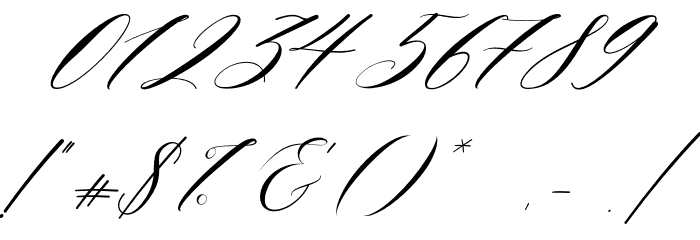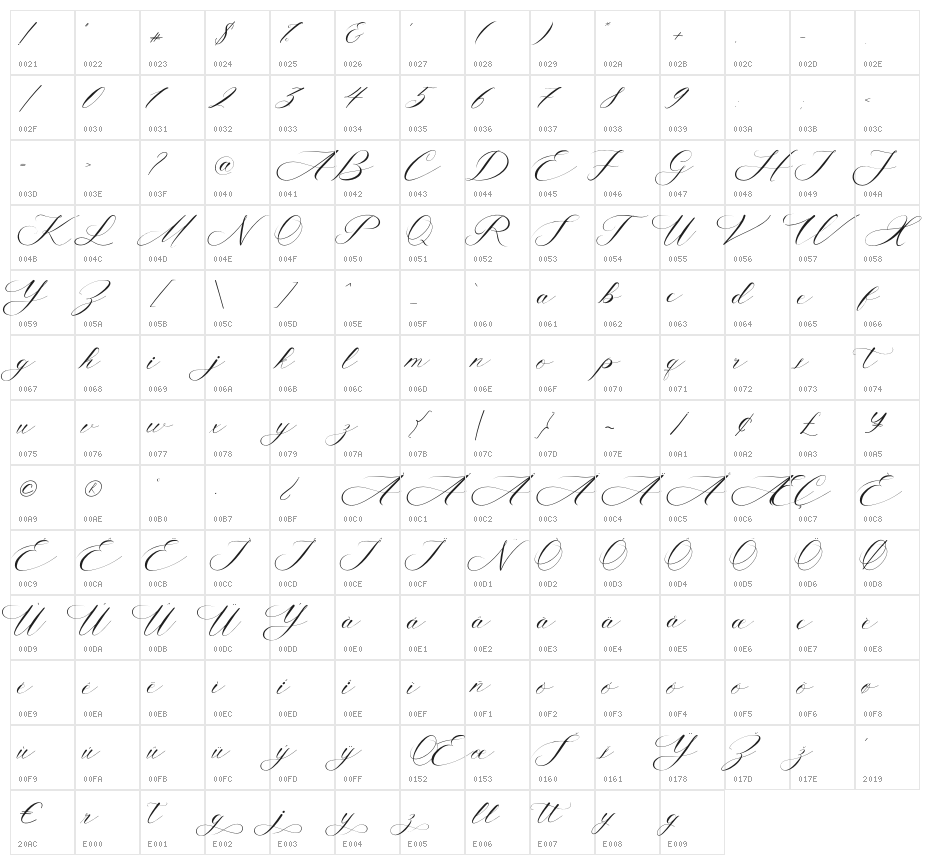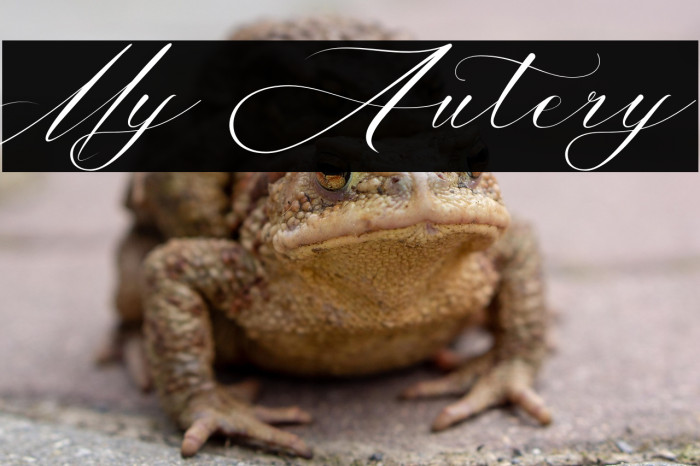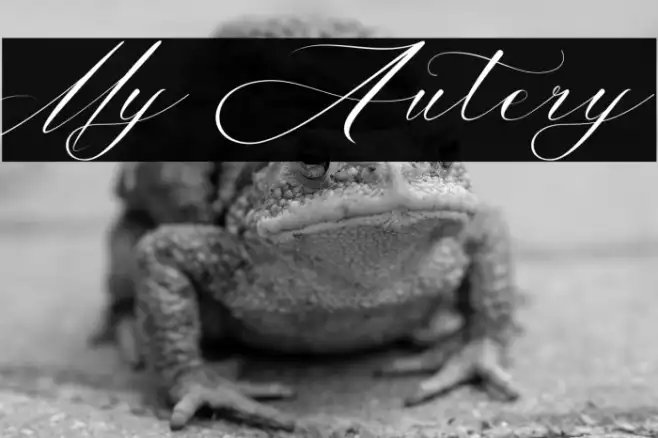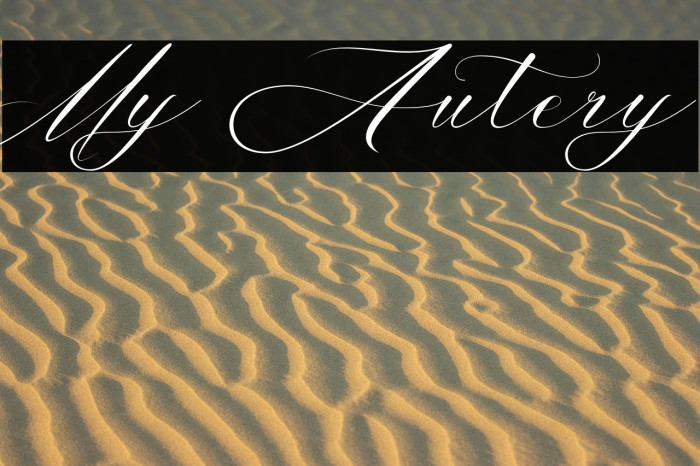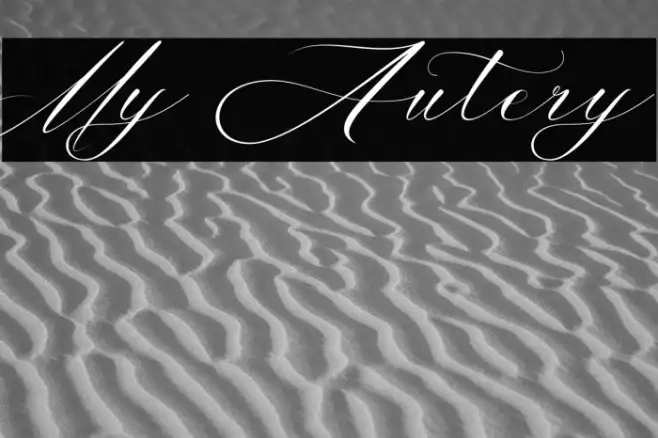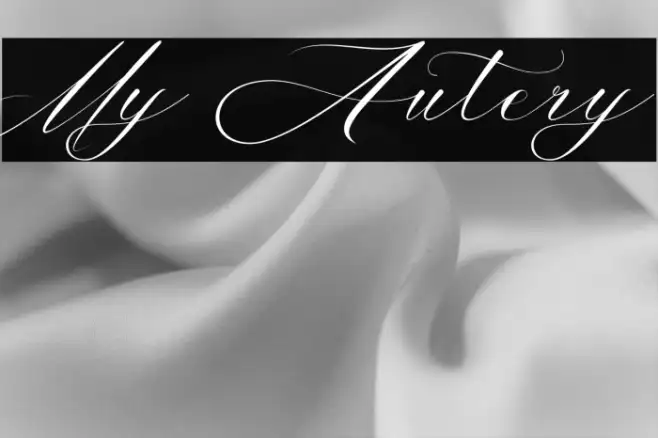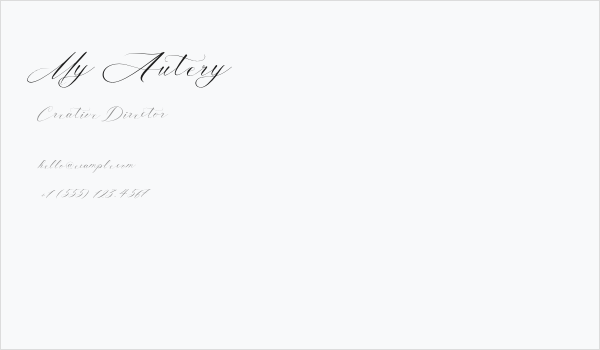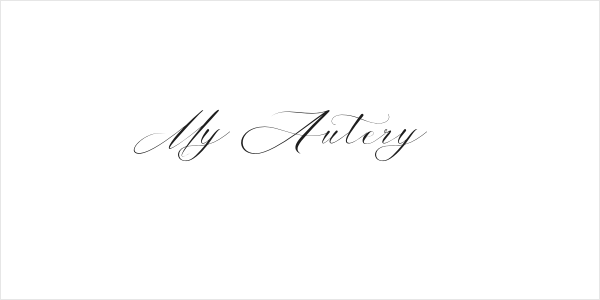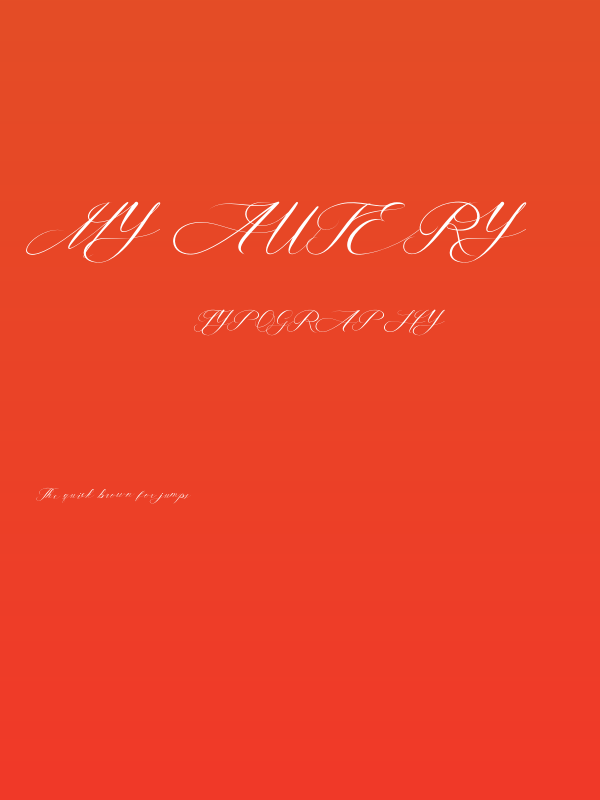
My Autery Font
My Autery Description
This elegant script font features flowing, interconnected letters with a classic calligraphic style. The uppercase letters are ornate and sweeping, while the lowercase letters maintain a graceful continuity. The numerals are stylish and consistent with the overall aesthetic, adding a touch of sophistication. The special characters are designed to complement the script, ensuring a cohesive look across all text elements. This font exudes a sense of luxury and refinement, making it ideal for formal invitations, branding, and high-end product packaging.
| Proposed Projects | Ideal for wedding invitations, luxury branding, elegant stationery, and high-end product packaging. |